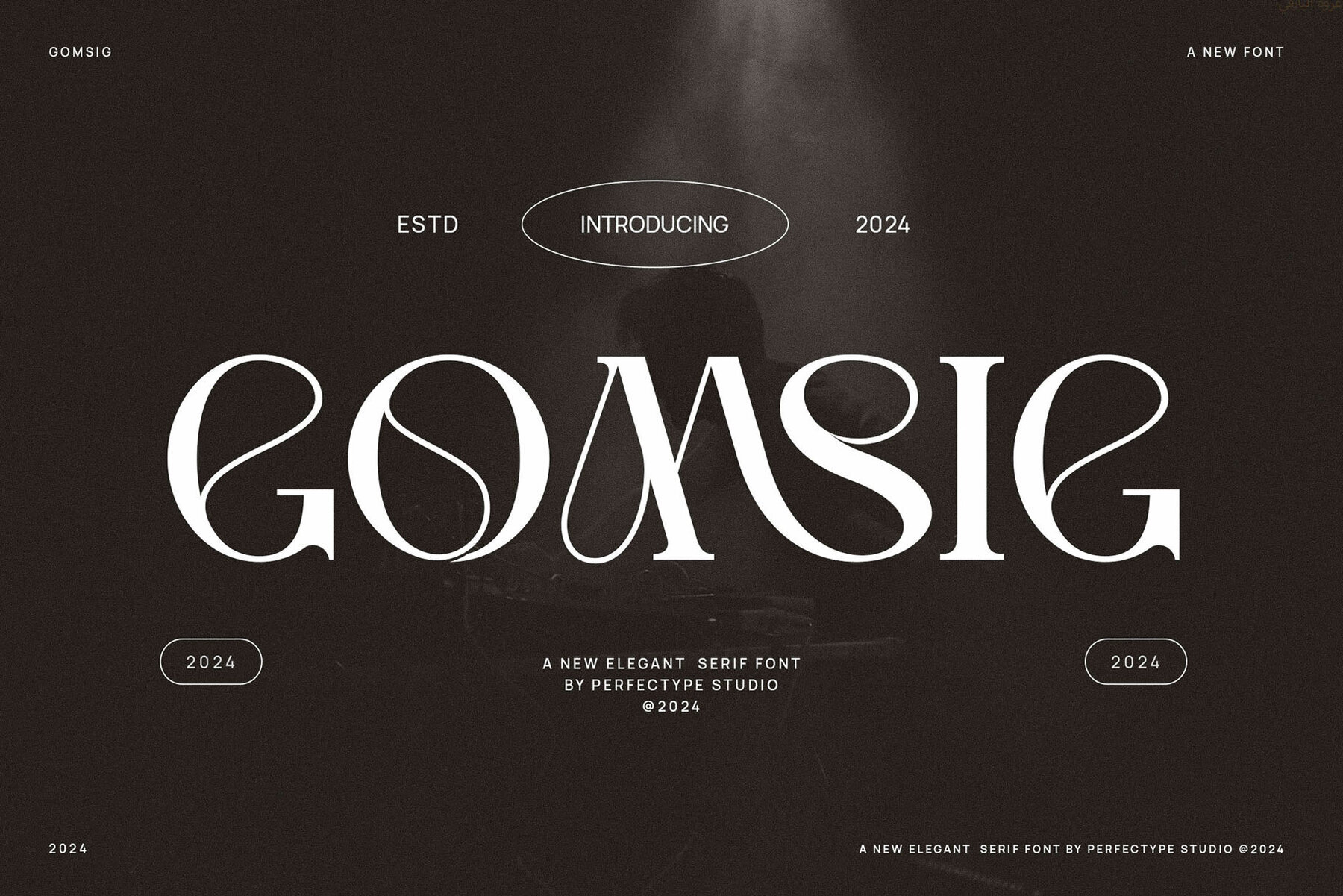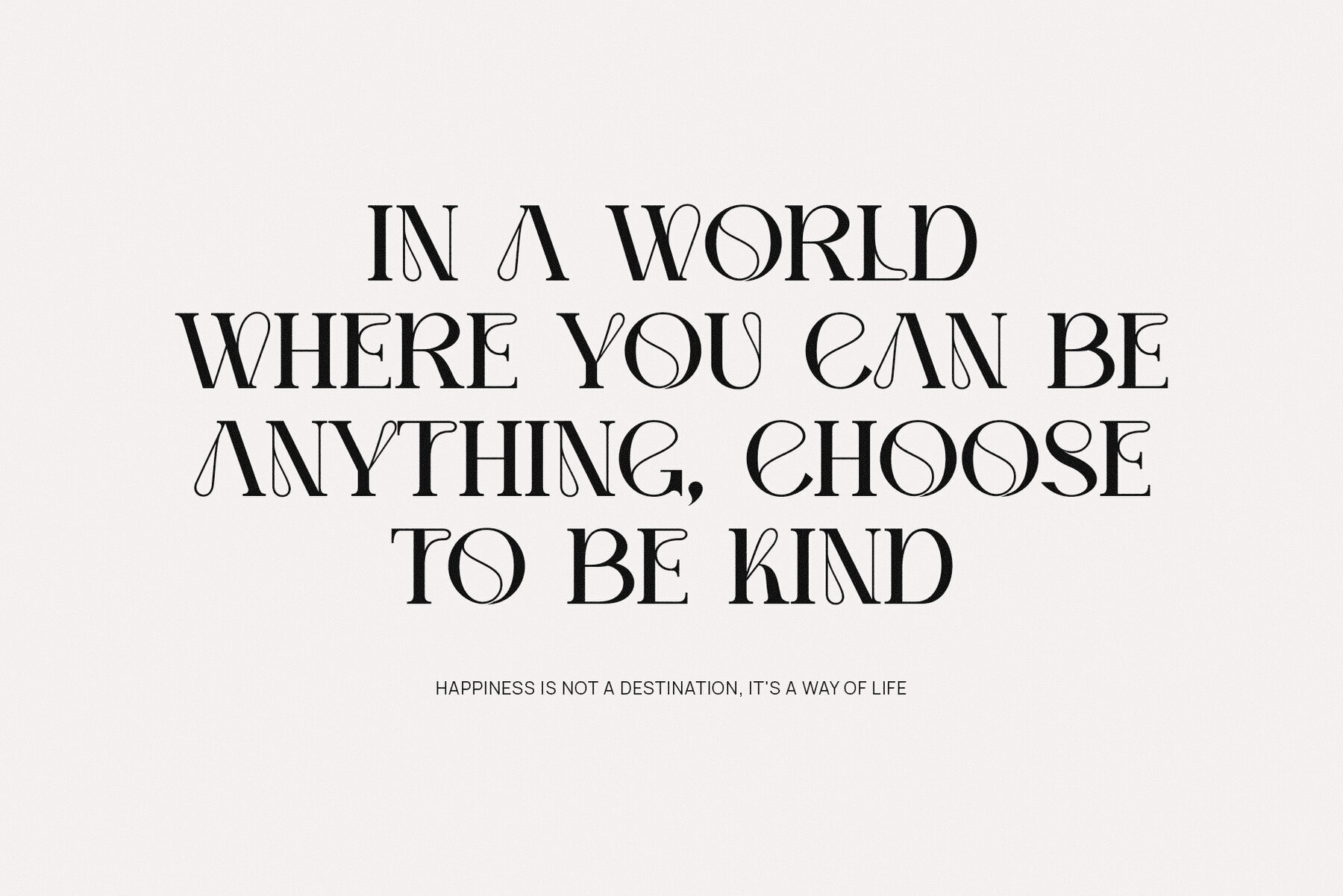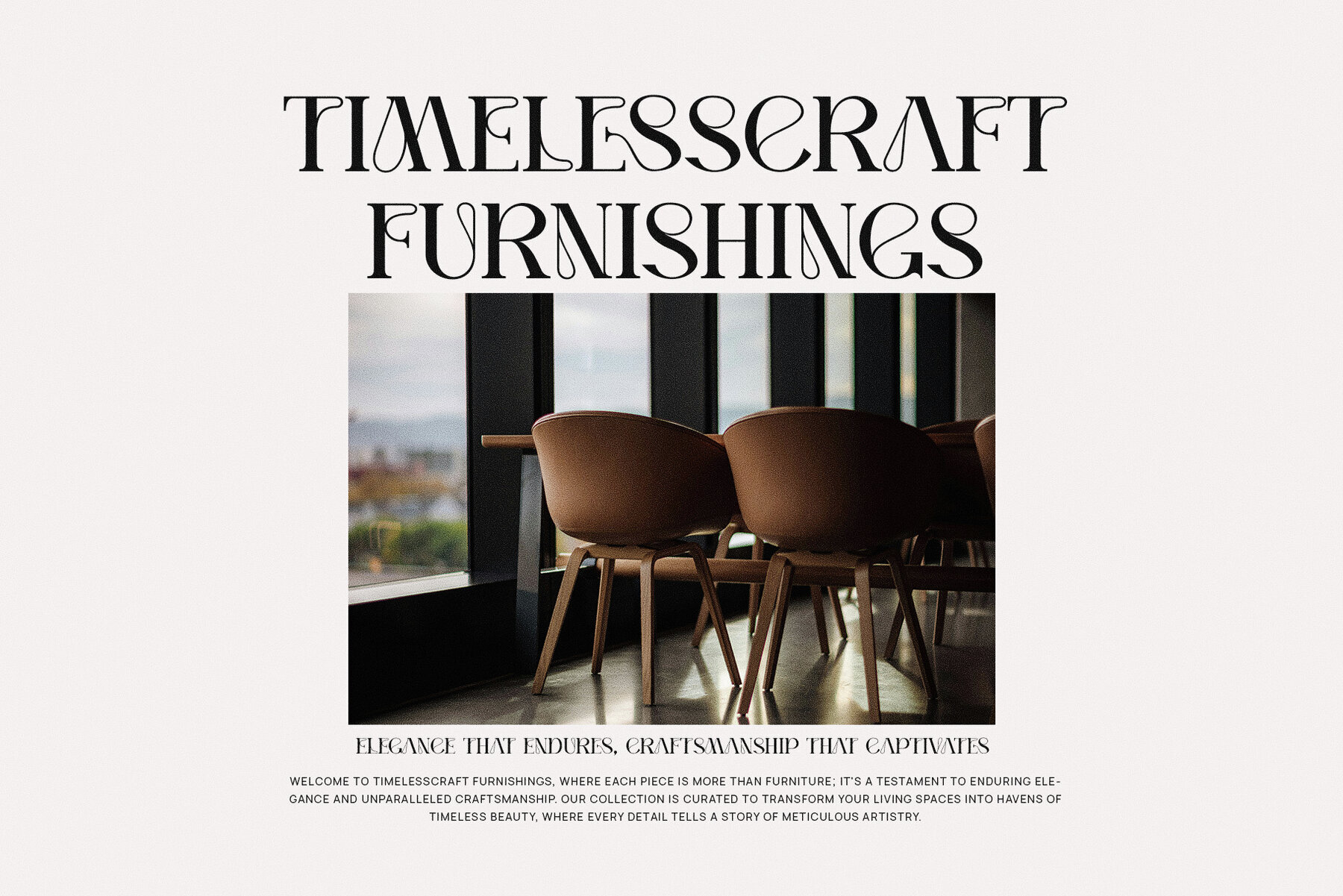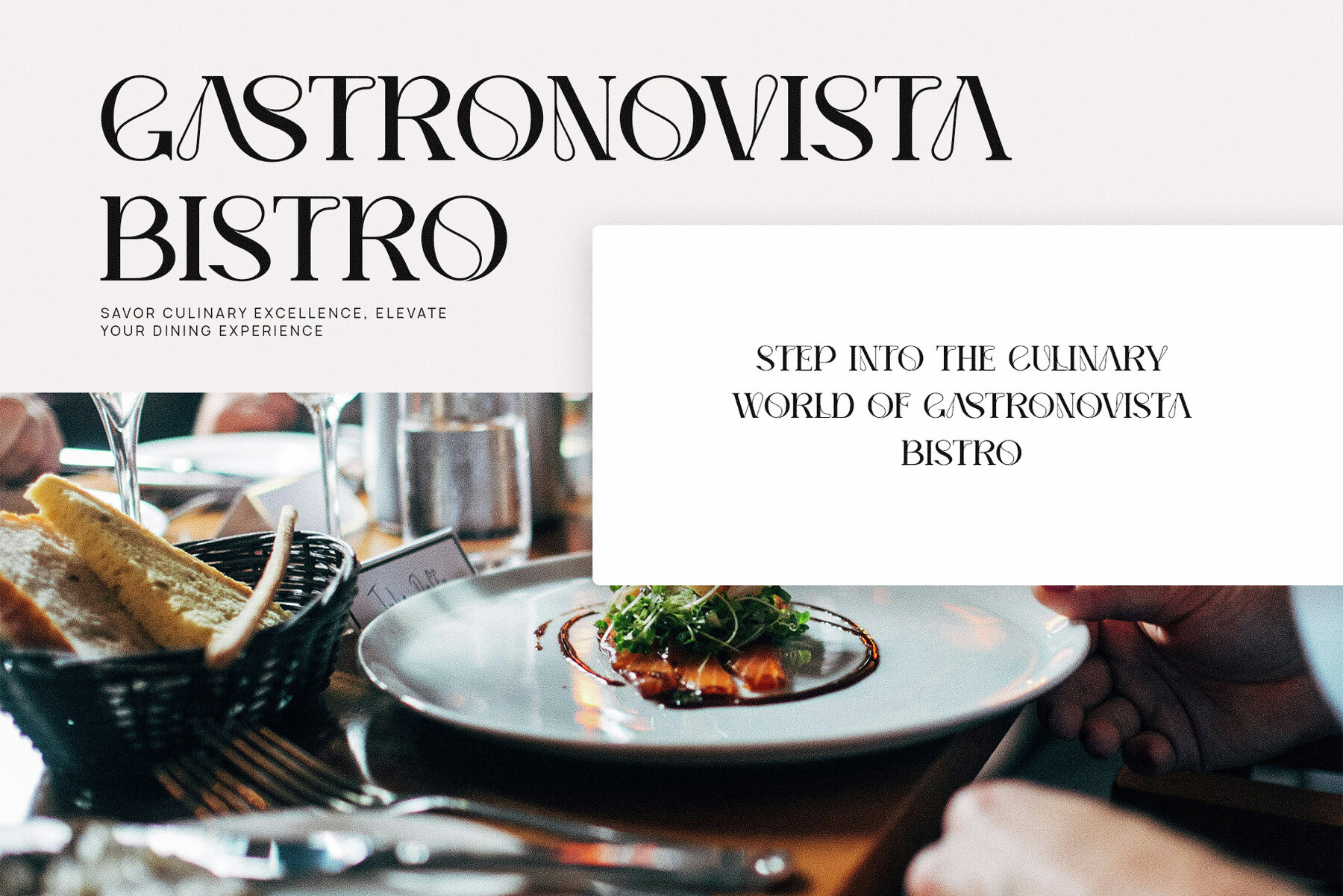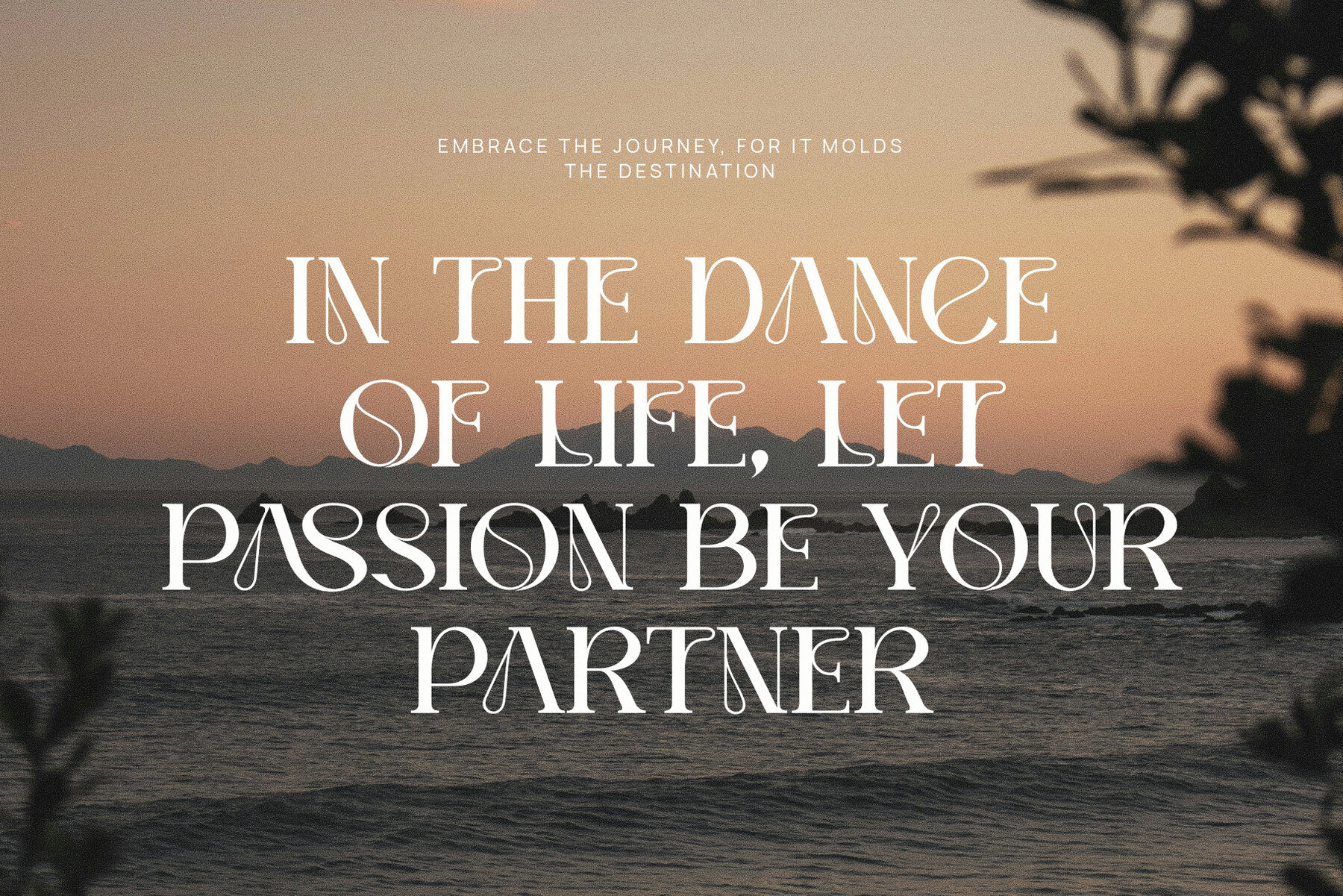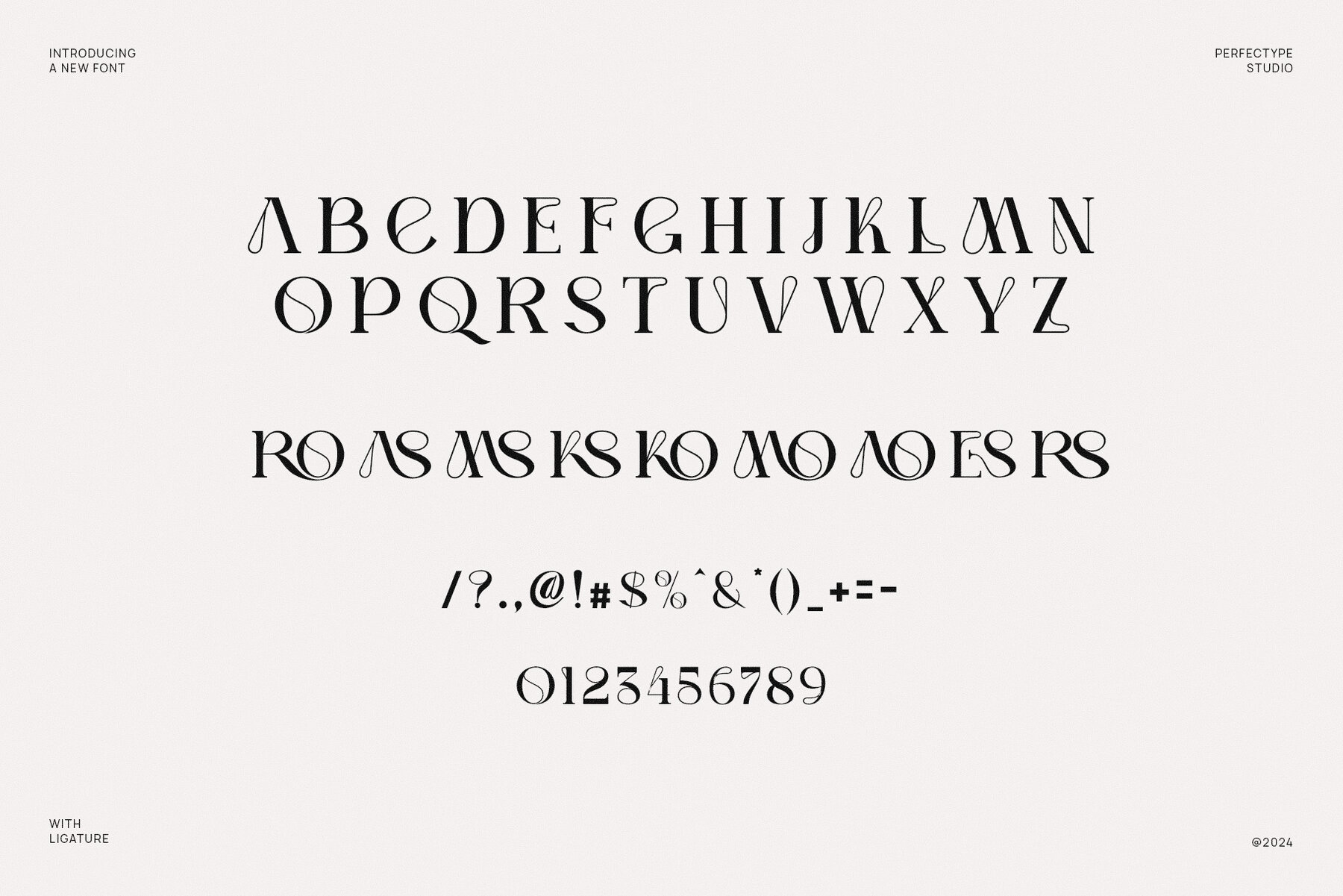
Gomsig Font
Gomsig
Gomsig Elegant Serif Font is a masterful blend of modern design and classic sophistication. Featuring meticulously crafted serifs and refined curves, this font brings a touch of elegance to any project. Unique letterforms, paired with beautiful ligatures and alternate characters, offer personalization, making Gomsig a standout choice for designers aiming for grace and style. Ideal for sleek logos, high-end websites, or sophisticated magazine layouts, Gomsig delivers unmatched versatility and beauty.
The font's clean and balanced structure ensures readability, while its elegant flourishes impart a premium feel, perfect for luxury branding and upscale product designs. Gomsig is especially suited for industries where elegance and attention to detail are crucial—such as fashion, lifestyle, food, and boutique branding. Its modern yet refined appearance shines across both print and digital media, providing cohesion and fluidity in logos, advertisements, and editorial content. With its exceptional design, Gomsig Elegant Serif Font is an essential tool for creating memorable, high-end branding that makes a lasting impression.